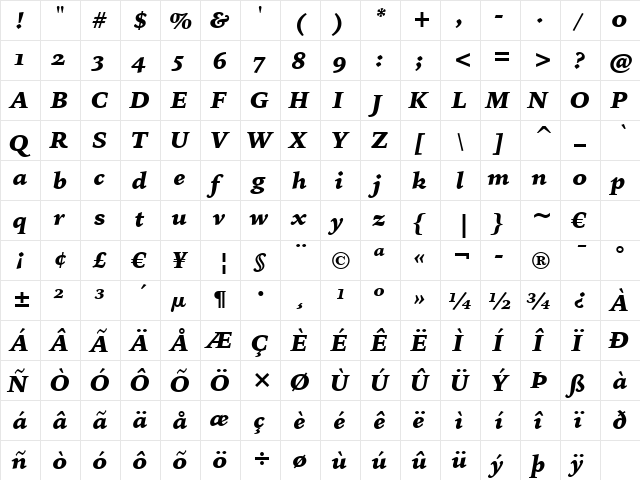
IowanOldSt Blk OSF BT Black Italic
Design Context for IowanOldSt Blk OSF BT Typeface
IowanOldSt Blk OSF BT offers clean, dependable letterforms without strong stylistic allegiance, making it a practical choice for designers who need flexibility. Its italic angle brings a sense of urgency and motion to the letterforms.
Pro Tip: Use IowanOldSt Blk OSF BT for emphasis, pull quotes, and subheadings where its slanted energy can add rhythm to the layout.